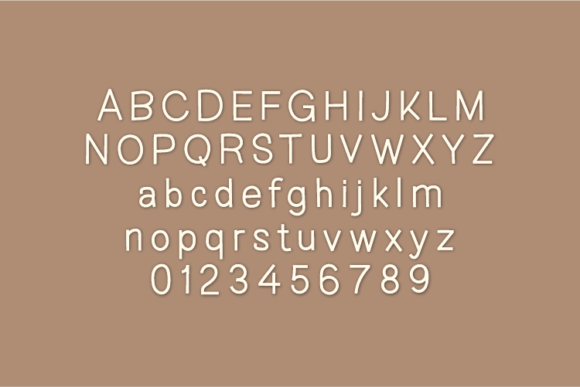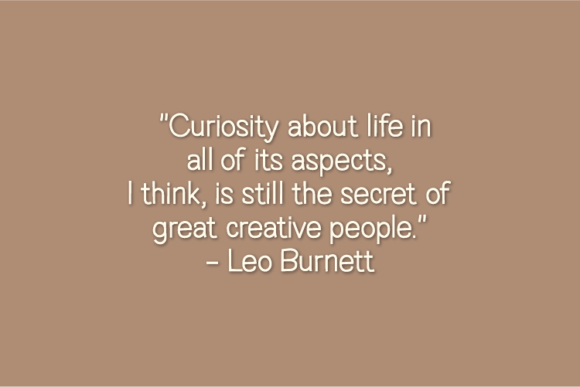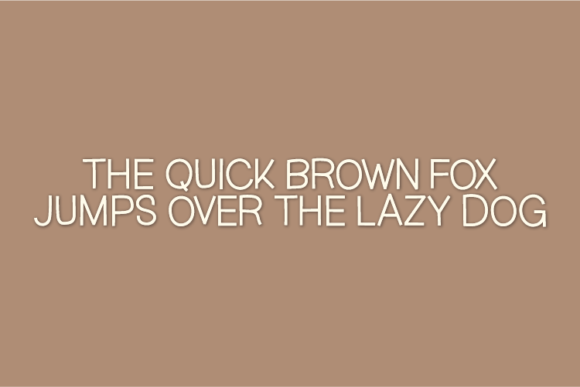
Introducing Faithful Font: Elevate Your Designs with a Beautiful Sans Serif Typeface
Are you a designer or crafter looking for a versatile and stunning font to take your creations to the next level? Look no further than Faithful Font, a gorgeous sans serif typeface that is sure to become a treasured asset in your collection. With its clean lines, elegant curves, and exceptional legibility, Faithful Font is the perfect choice for a wide range of design projects.
What Makes Faithful Font So Special?
Faithful Font boasts a unique blend of modern style and timeless appeal, making it an excellent addition to any design. Its sans serif design ensures that your text remains clear and easy to read, even at smaller sizes, while its beautiful curves and lines add a touch of sophistication and elegance. Whether you’re working on a logo, quote, T-shirt, greeting card, business card, or any other project, Faithful Font is sure to make it stand out.
Endless Design Possibilities with Faithful Font
One of the best things about Faithful Font is its incredible versatility. This font can be used in a wide range of design applications, including:
- Logos: Create a lasting impression with a custom logo that incorporates Faithful Font. Perfect for businesses, organizations, or personal brands.
- Quotes: Add a touch of inspiration and motivation to your quotes with Faithful Font. Ideal for social media posts, posters, or flyers.
- T-shirts and apparel: Give your custom tees and apparel a professional, high-end look with Faithful Font.
- Greeting cards: Create beautiful, heartfelt greeting cards for any occasion with Faithful Font.
- Business cards: Make a great first impression with custom business cards that feature Faithful Font.
- And more: Faithful Font can be used in a wide range of other design projects, from brochures and posters to websites and social media graphics.
Why Choose Faithful Font?
So why should you choose Faithful Font for your design projects? Here are just a few compelling reasons:
- Exceptional legibility: Faithful Font is designed to be easy to read, even at smaller sizes.
- Versatile: This font can be used in a wide range of design applications.
- Beautiful design: Faithful Font features a stunning sans serif design that will elevate your creations.
- Elegant and sophisticated: Add a touch of elegance and sophistication to your designs with Faithful Font.
In conclusion, Faithful Font is a beautiful sans serif typeface that is sure to become a valuable asset in your design collection. With its exceptional legibility, versatility, and stunning design, Faithful Font is the perfect choice for a wide range of design projects. Whether you’re a designer, crafter, or DIY enthusiast, Faithful Font is sure to help you create stunning, professional-looking designs that will leave a lasting impression.